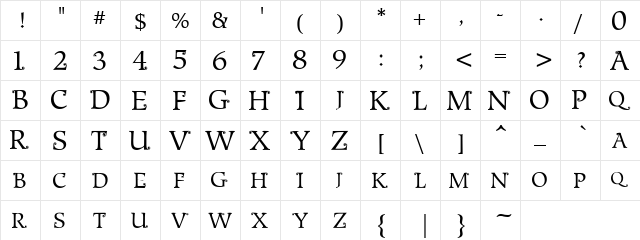
Metshige Normal
Design Context for Metshige Typeface
Metshige is a composed and adaptable typeface that performs quietly and consistently across a wide range of design contexts.